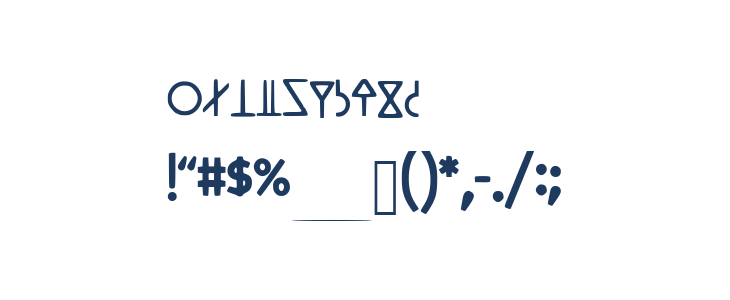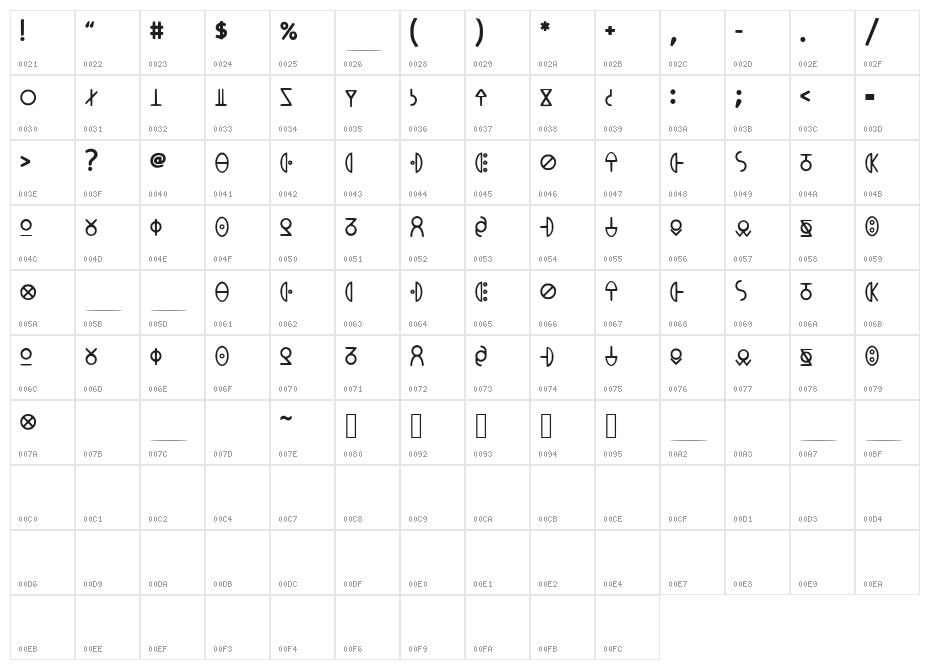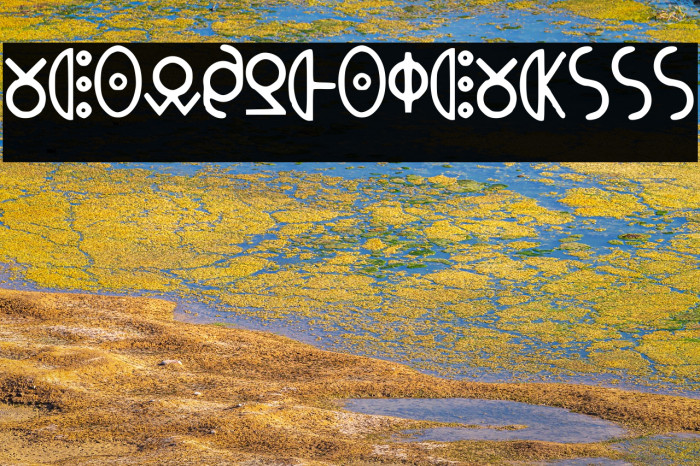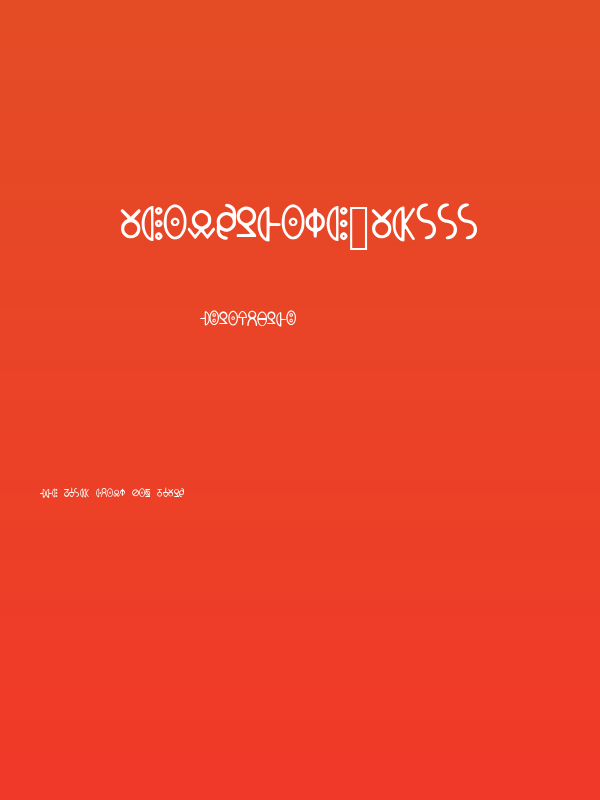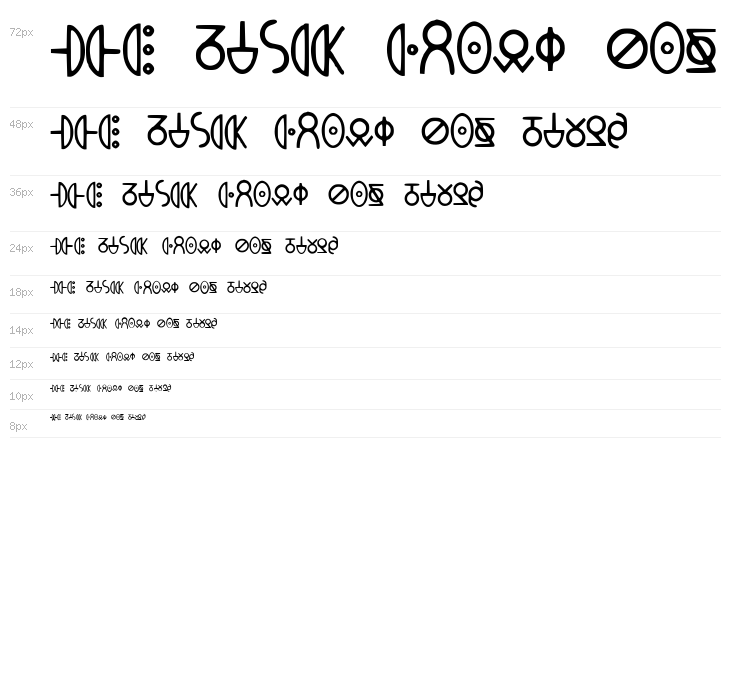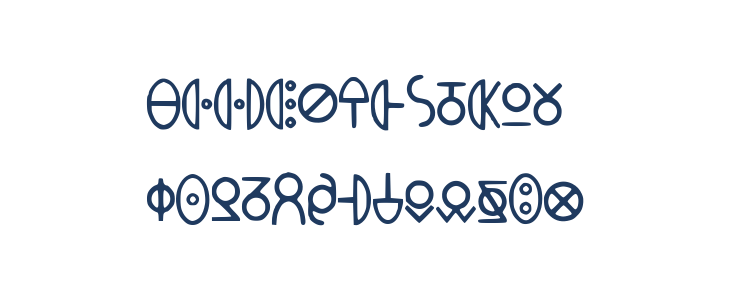
MeowsPhone_MkIII Font
MeowsPhone_MkIII Description
This font features a highly decorative and abstract style, characterized by its unique and unconventional shapes. The characters are composed of geometric forms, including circles, lines, and curves, creating a futuristic and cryptic appearance. The design is bold and striking, with each letterform standing out distinctly. The font's playful and artistic nature makes it suitable for creative and experimental projects. Its intricate design elements suggest a sense of mystery and innovation, making it ideal for use in contexts where a modern and avant-garde aesthetic is desired.
| Overall Style | Futuristic, Artistic |
| Use Case | Logos, Posters, Creative Displays |
| Proposed Projects | Ideal for creative projects, sci-fi themes, artistic displays, and experimental designs. |